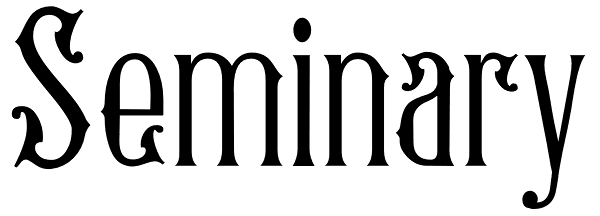
Seminary
This began life as a European font that was copied in the United States by Bruce's Type Foundry in 1885. It was caps only and had a fine line "three-D" shadow. We scrapped the shadow, added a lower case, and voila!
Seminary Font